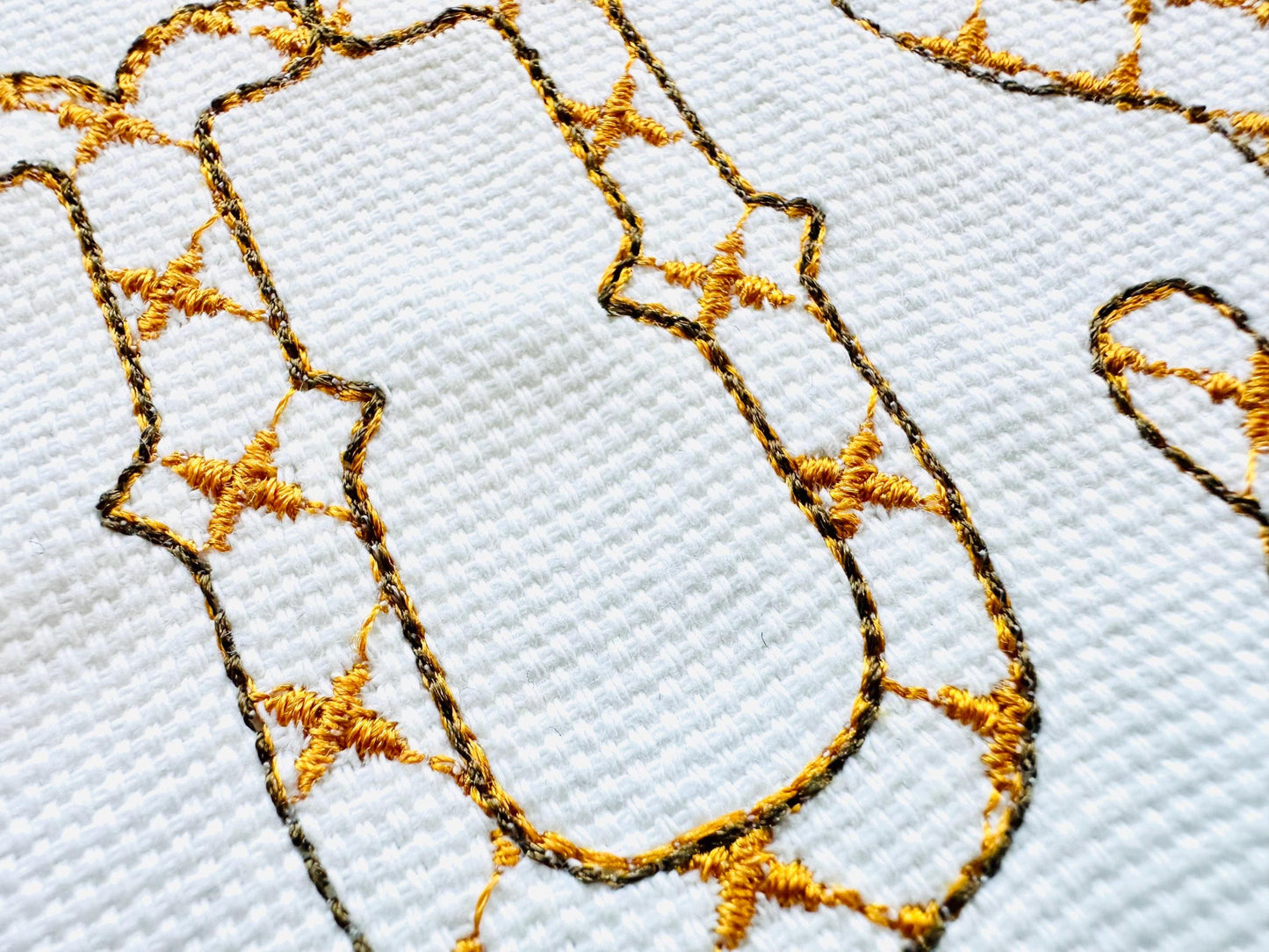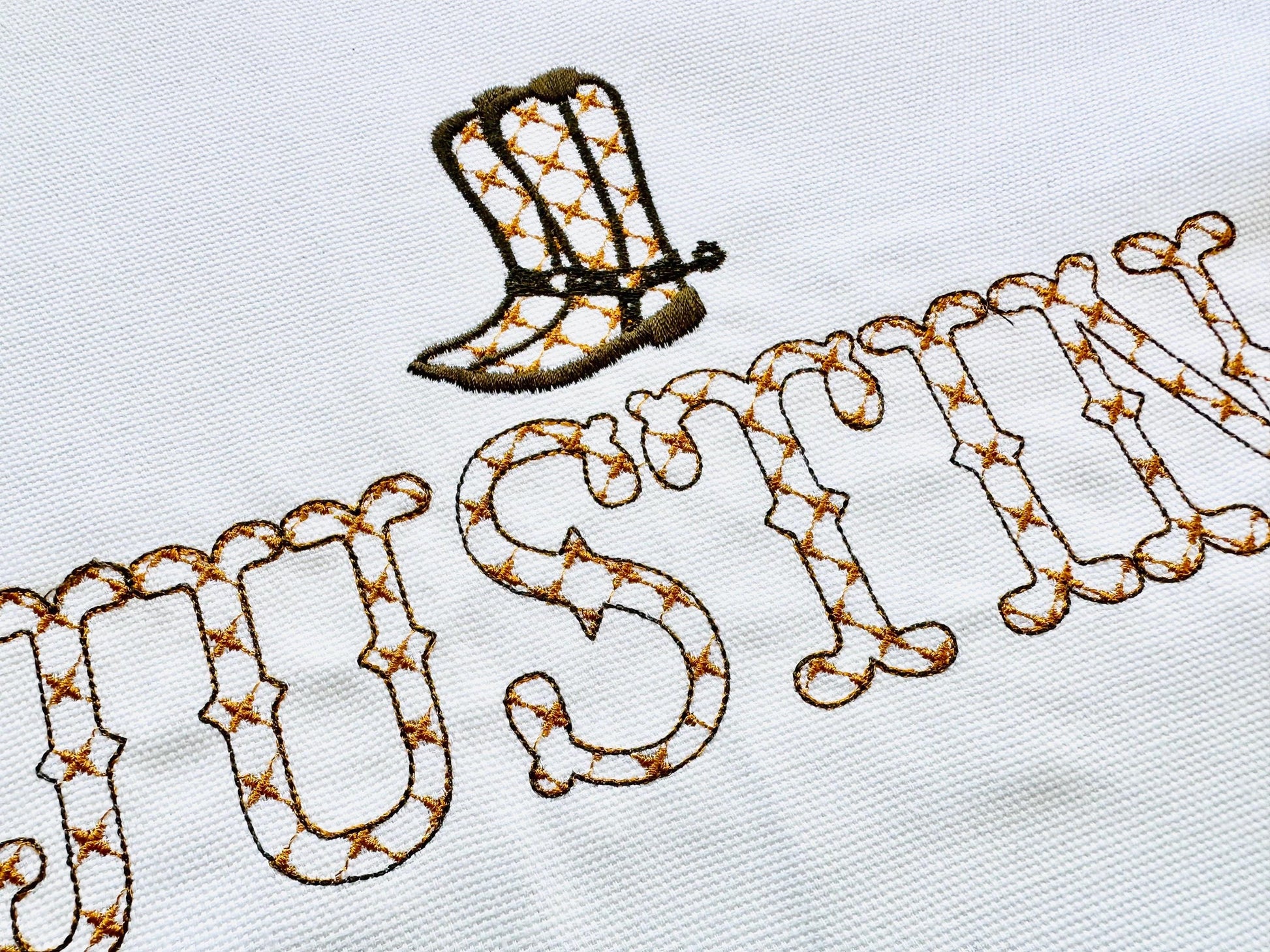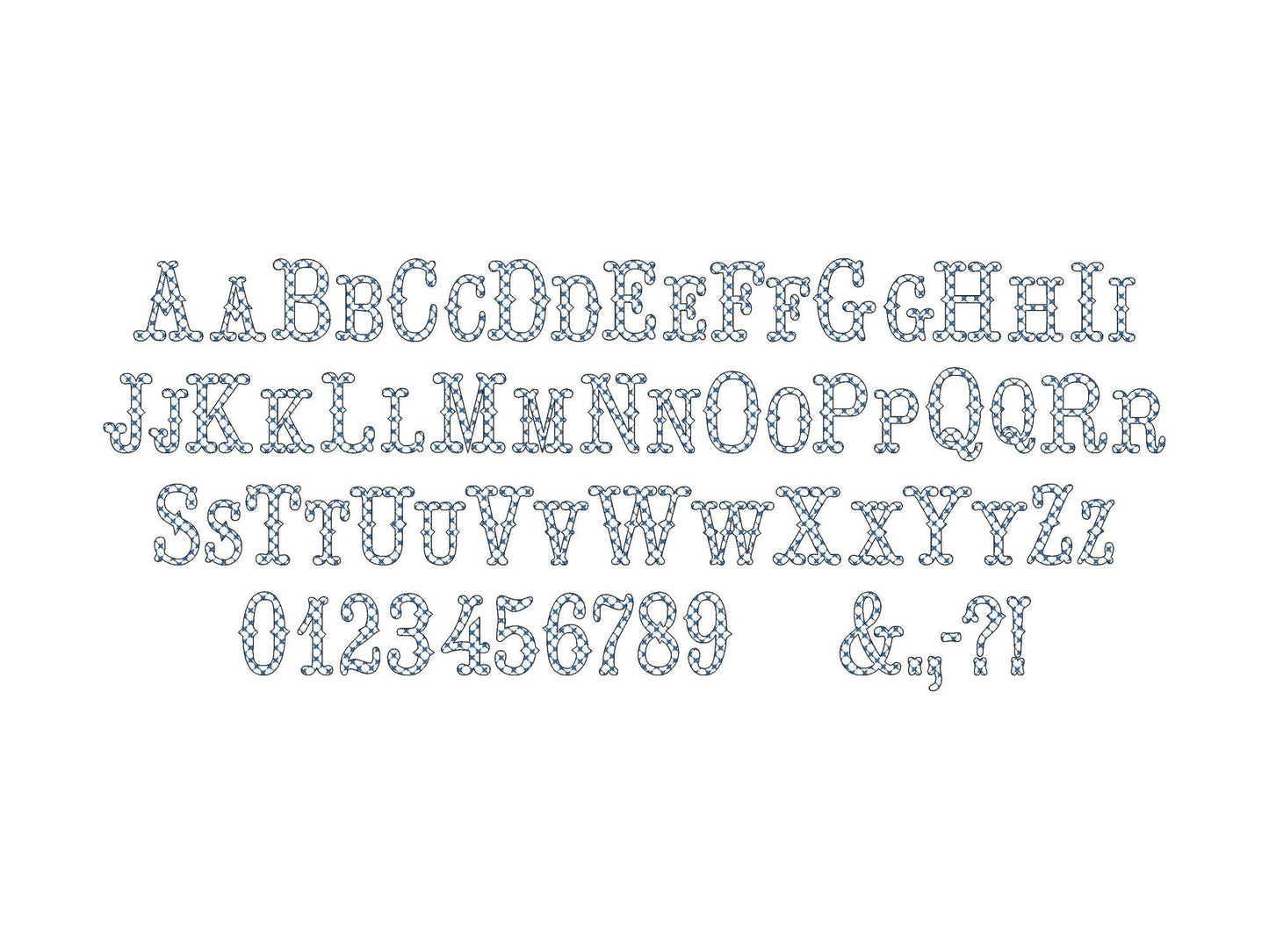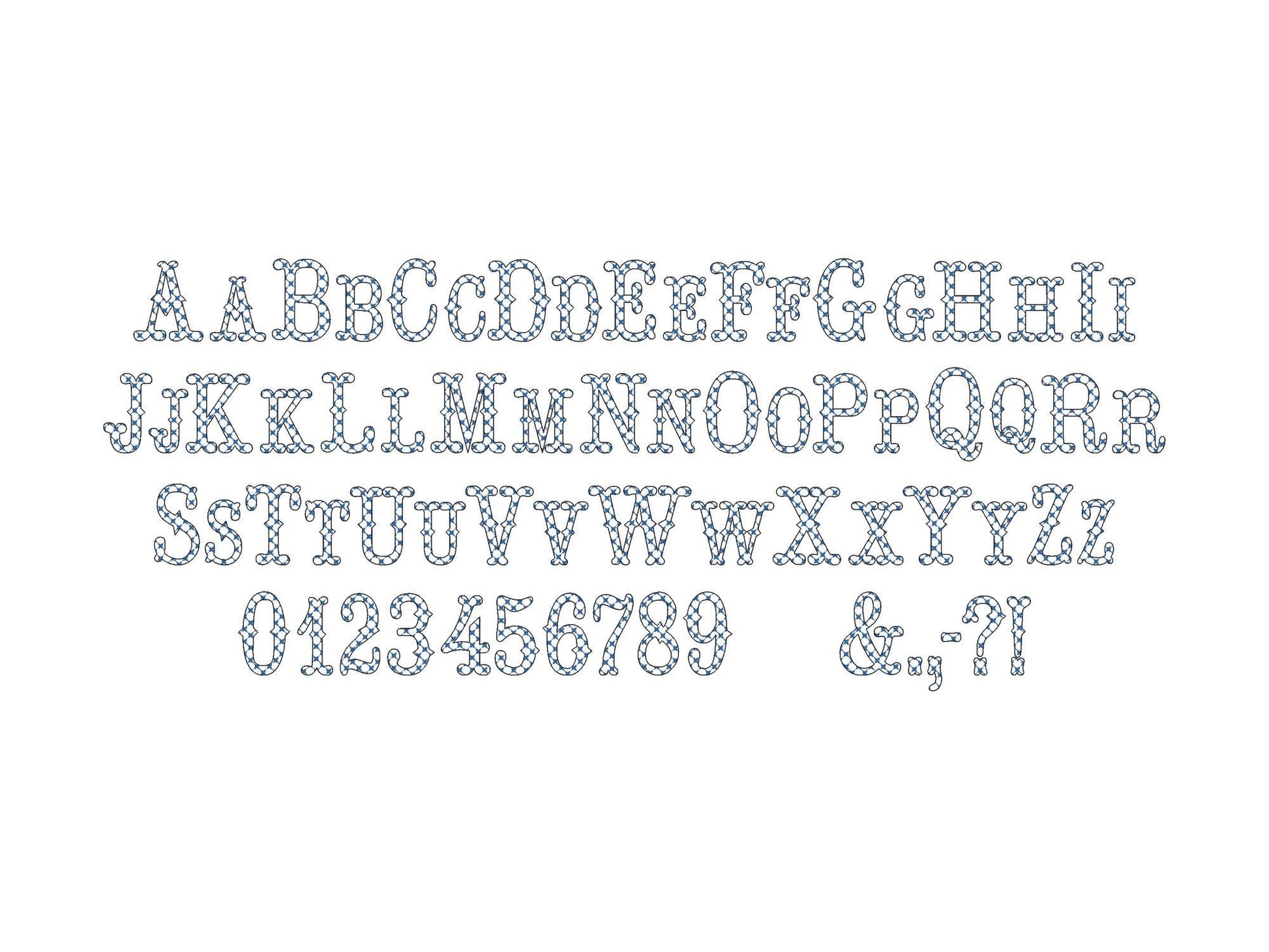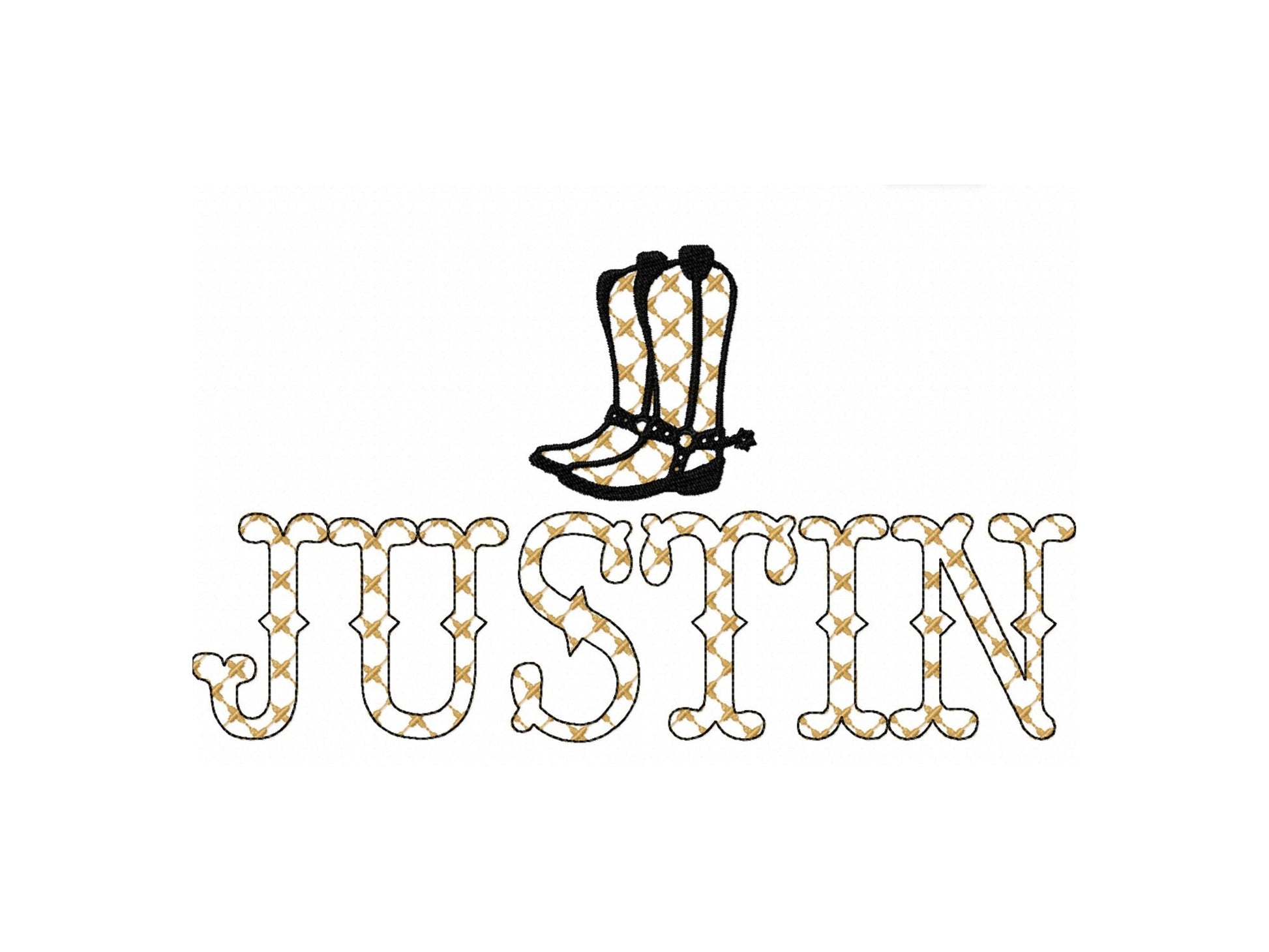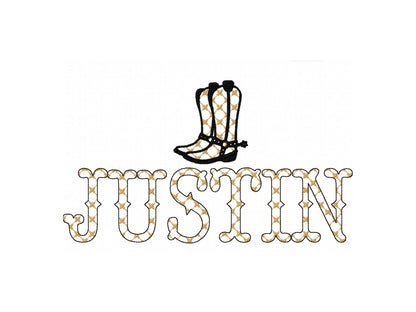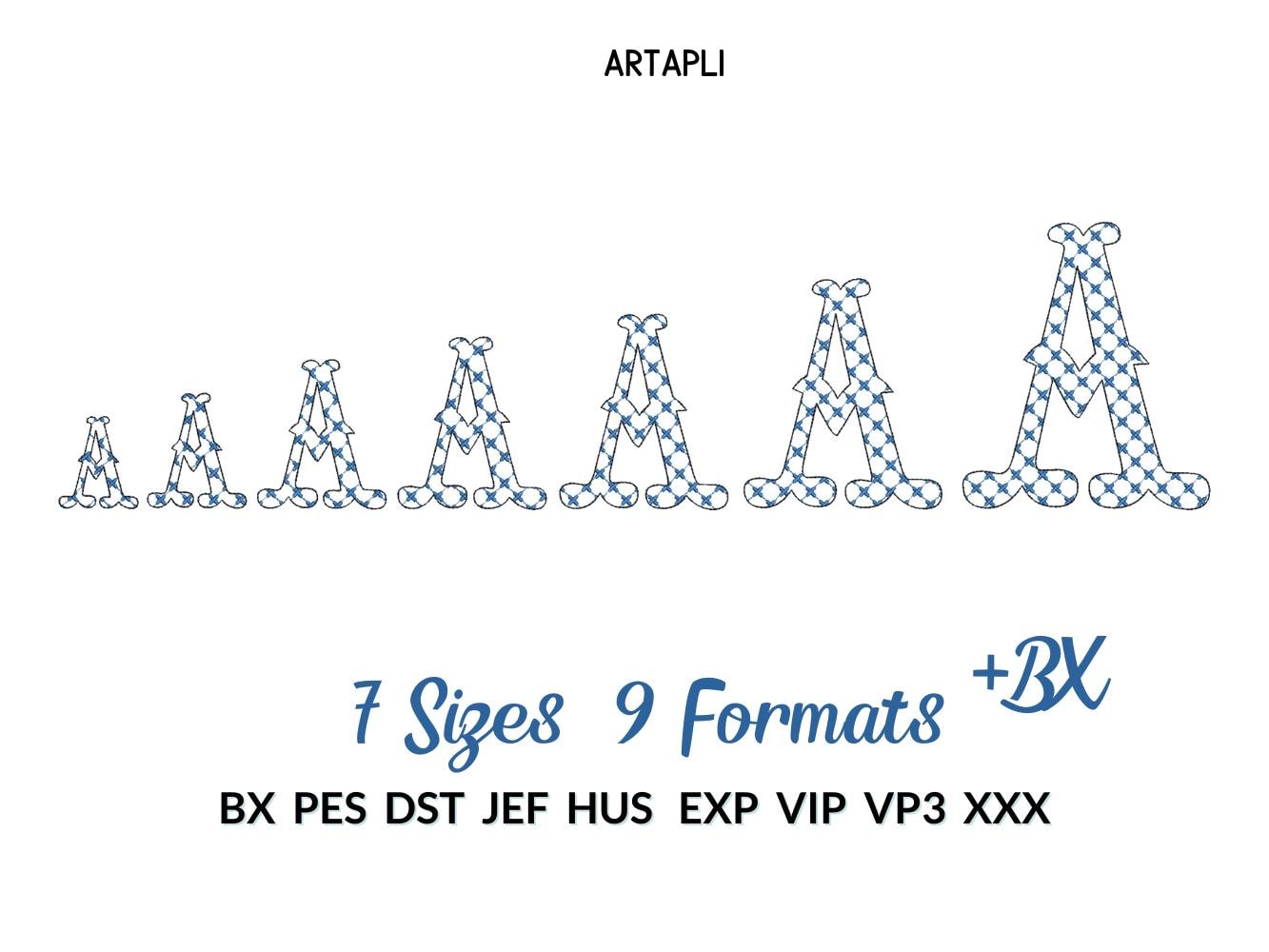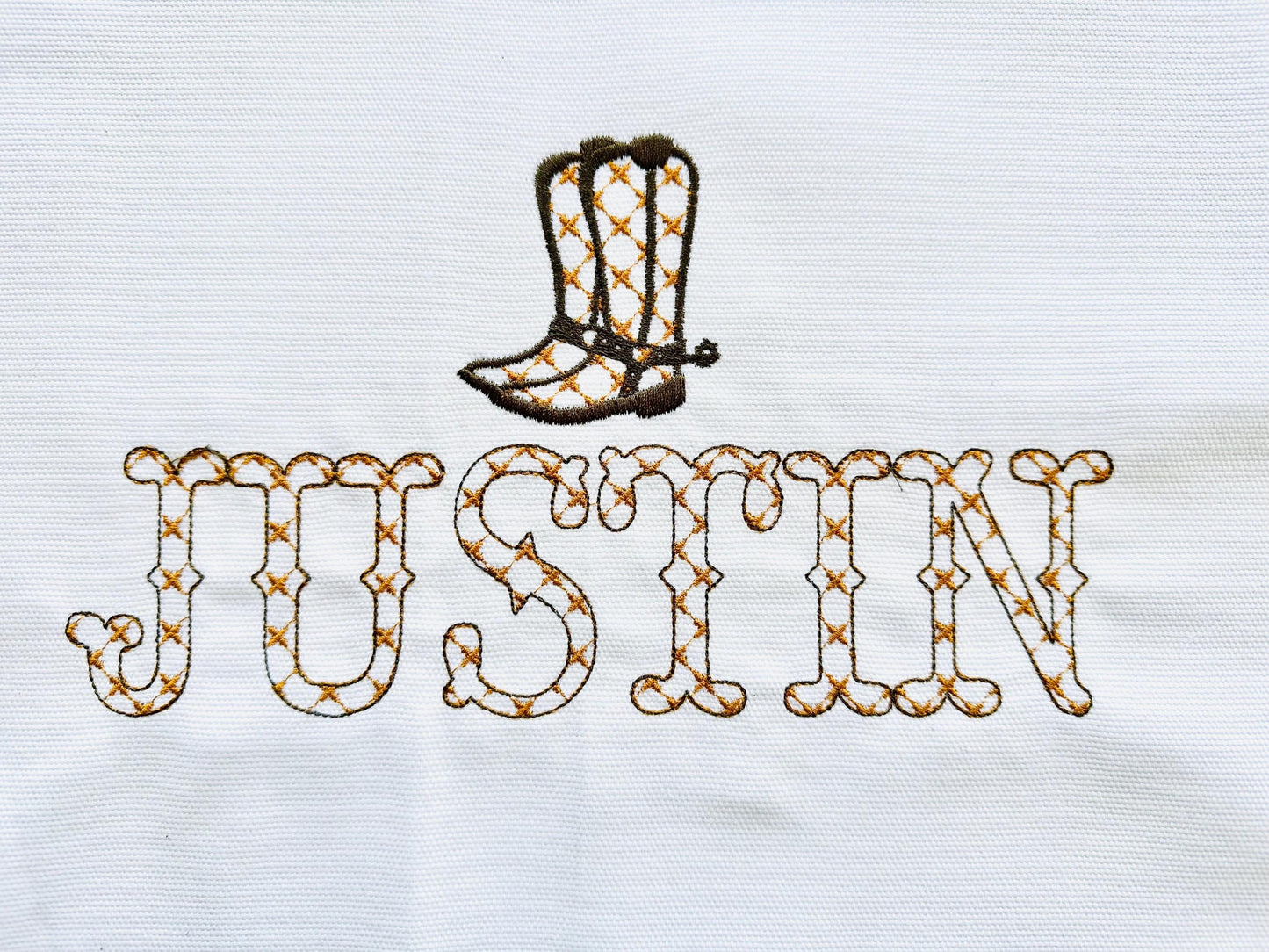
Or click to open the linkA classy western fishtail font with a lacy pattern inside. Great for farm and cowboy shirts, pillows, bags and monograms.
Uppercase and lowercase letters, numbers 0 to 9 and punctuation. Seven sizes: 1.7, 2.2, 2.8, 3.2, 3.7, 4.3 and 5.4 inches. Quick, lace-like stitching lets the fabric show through.